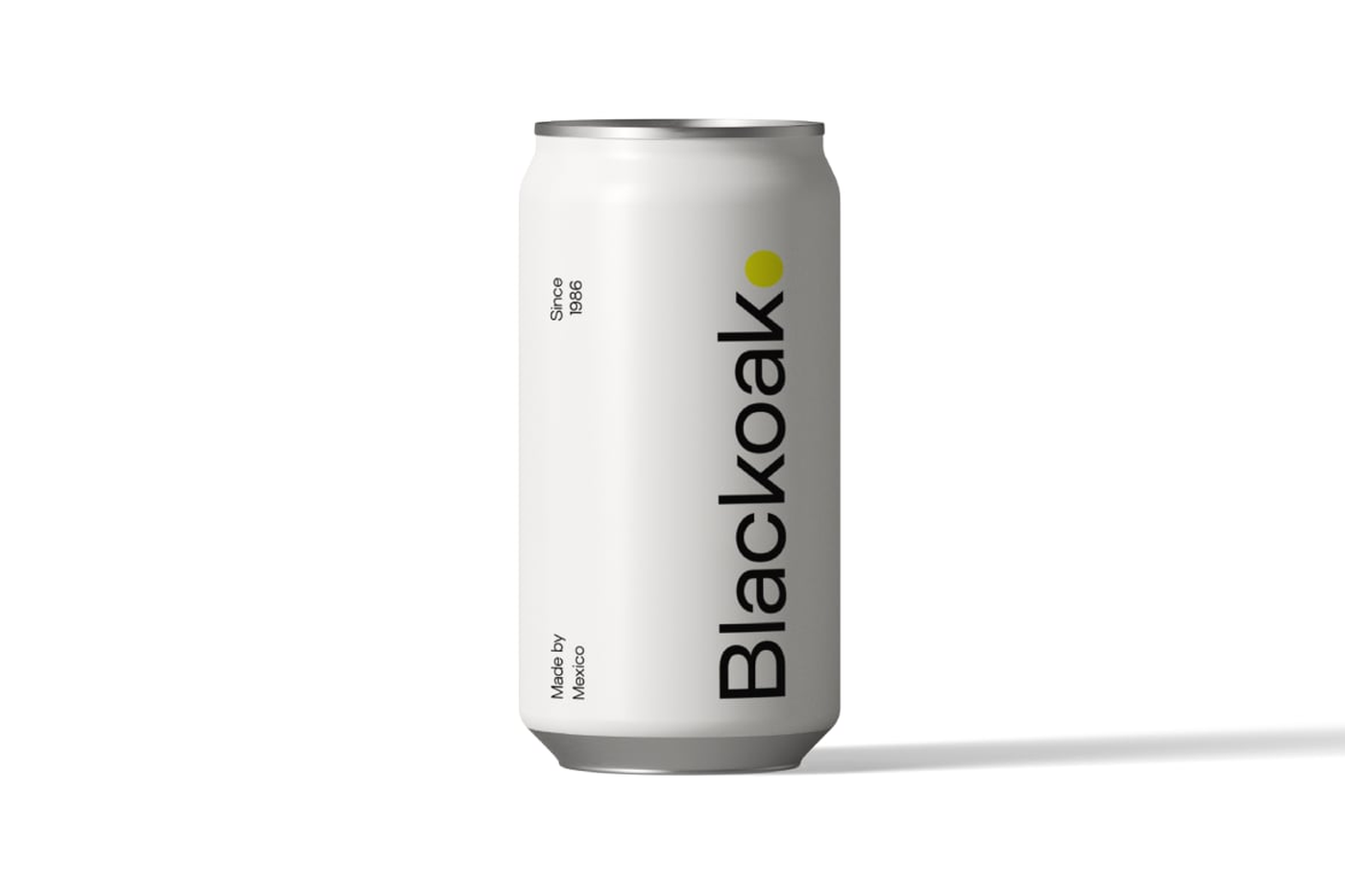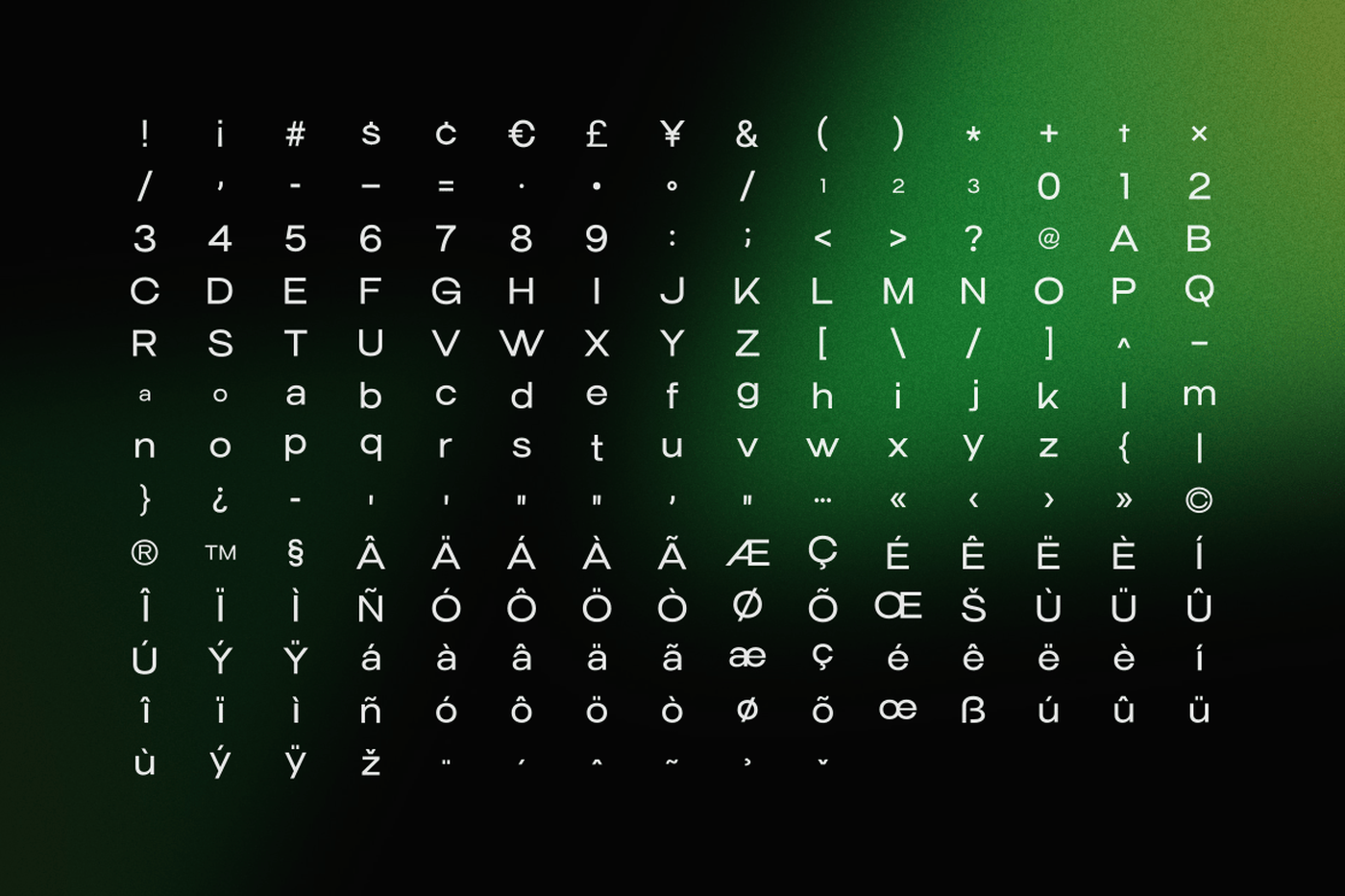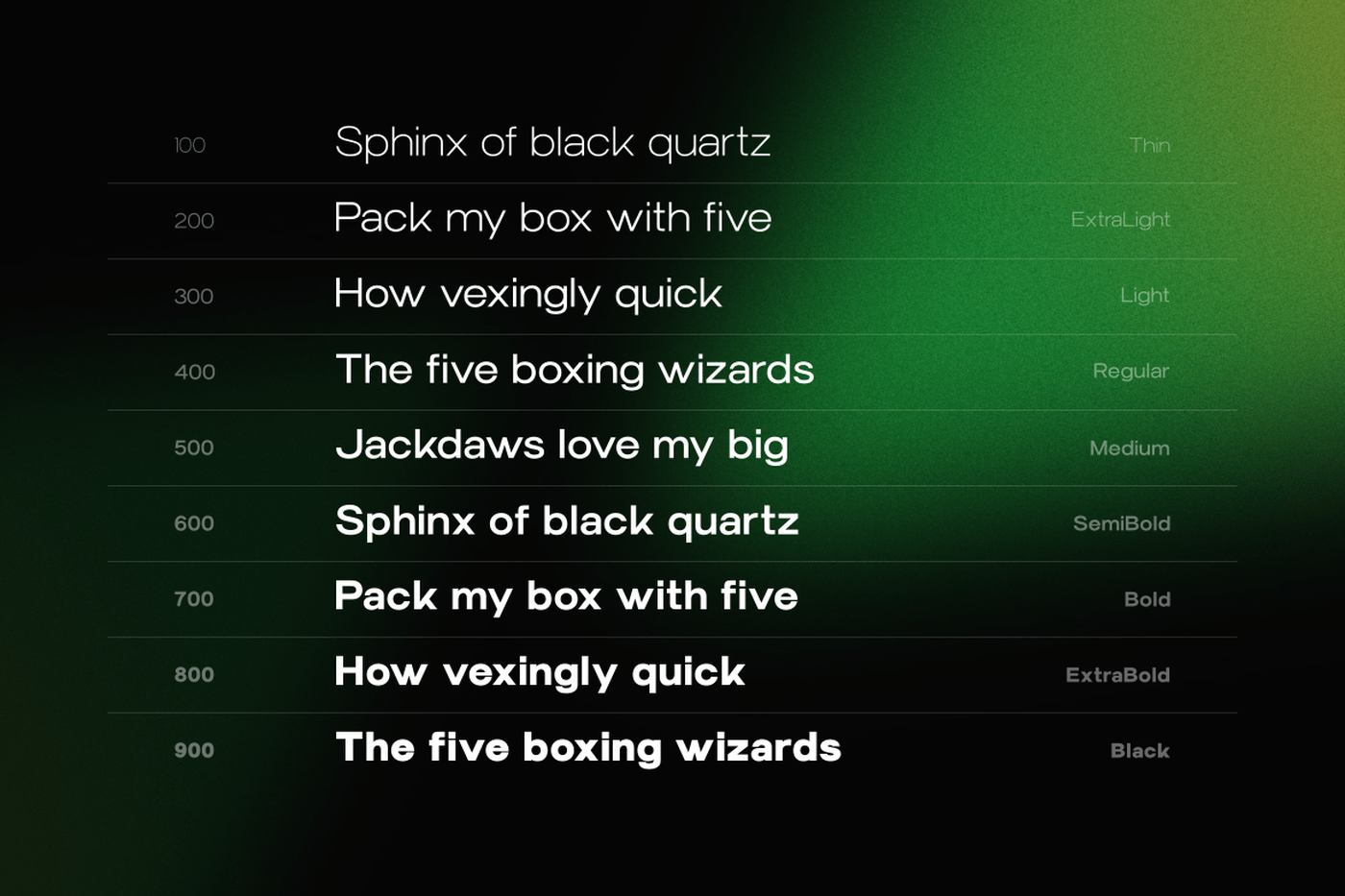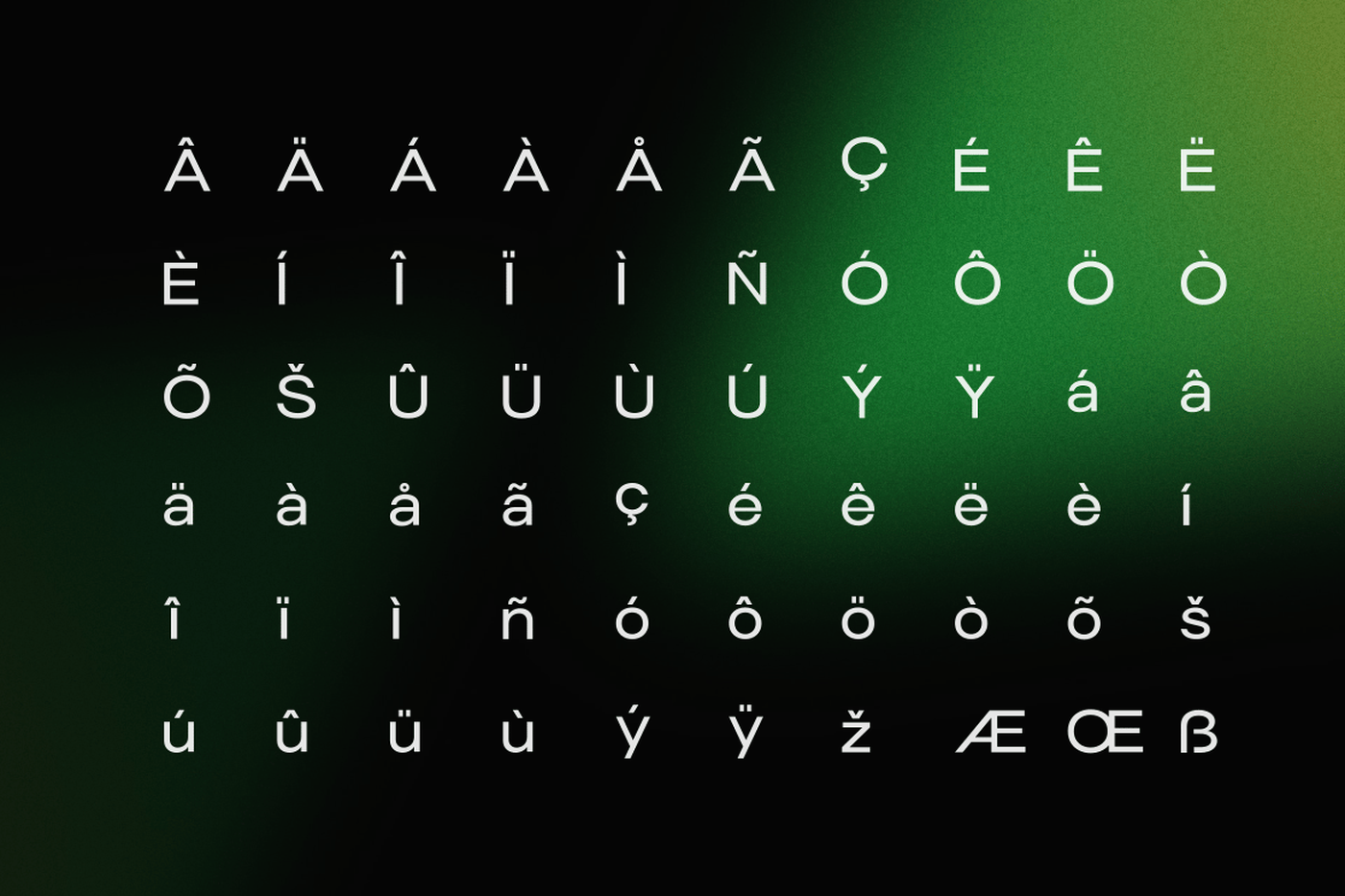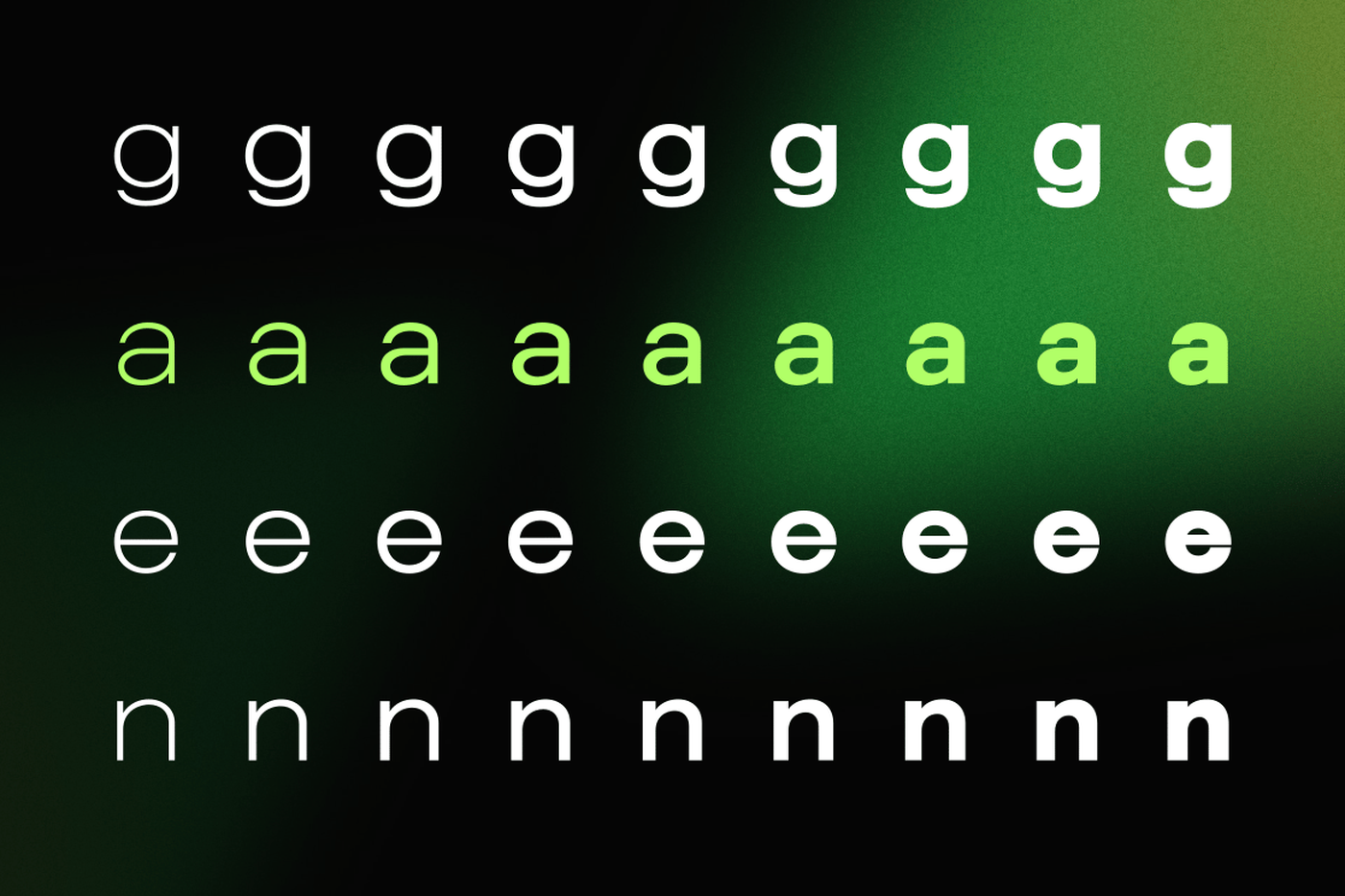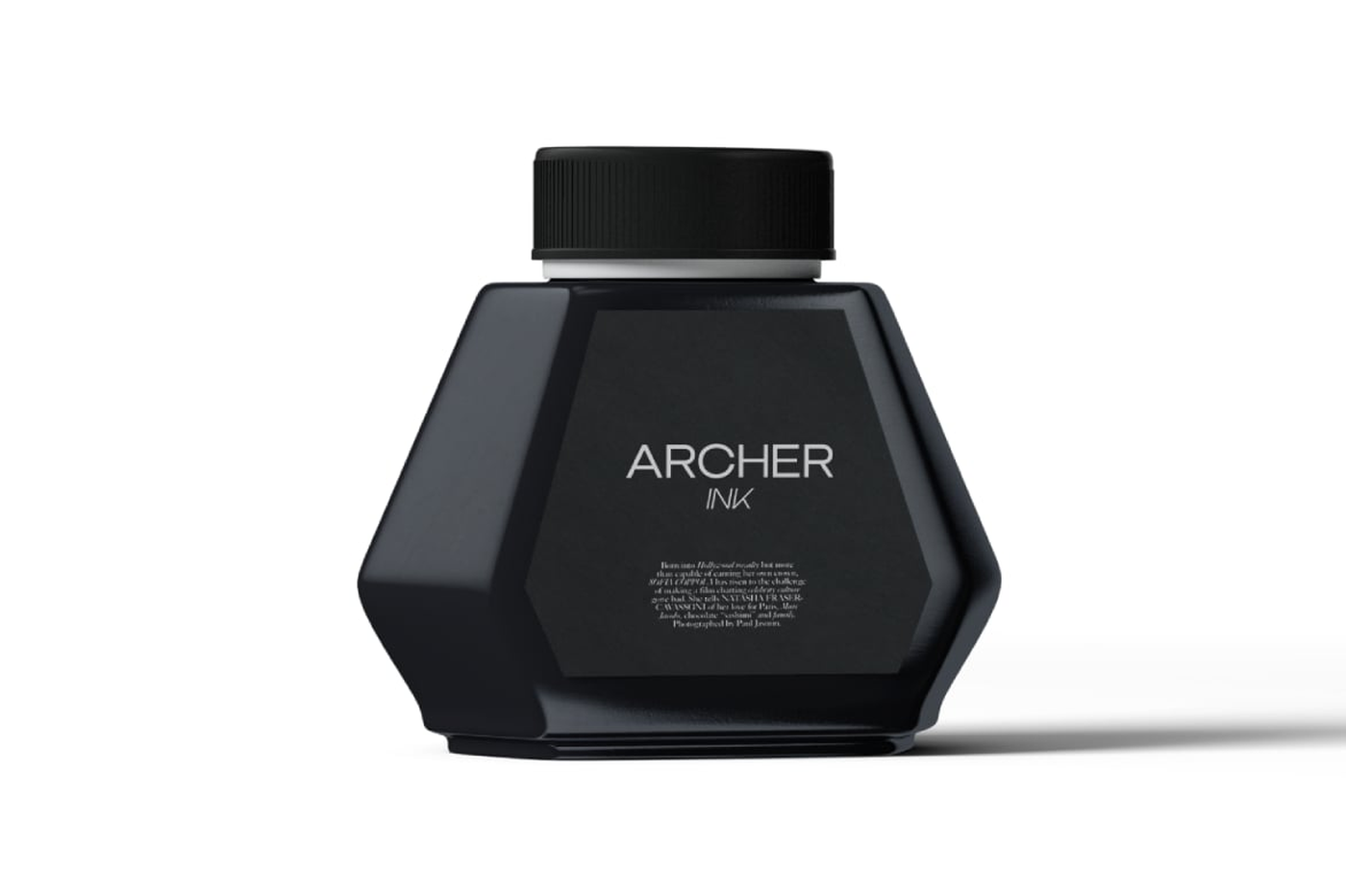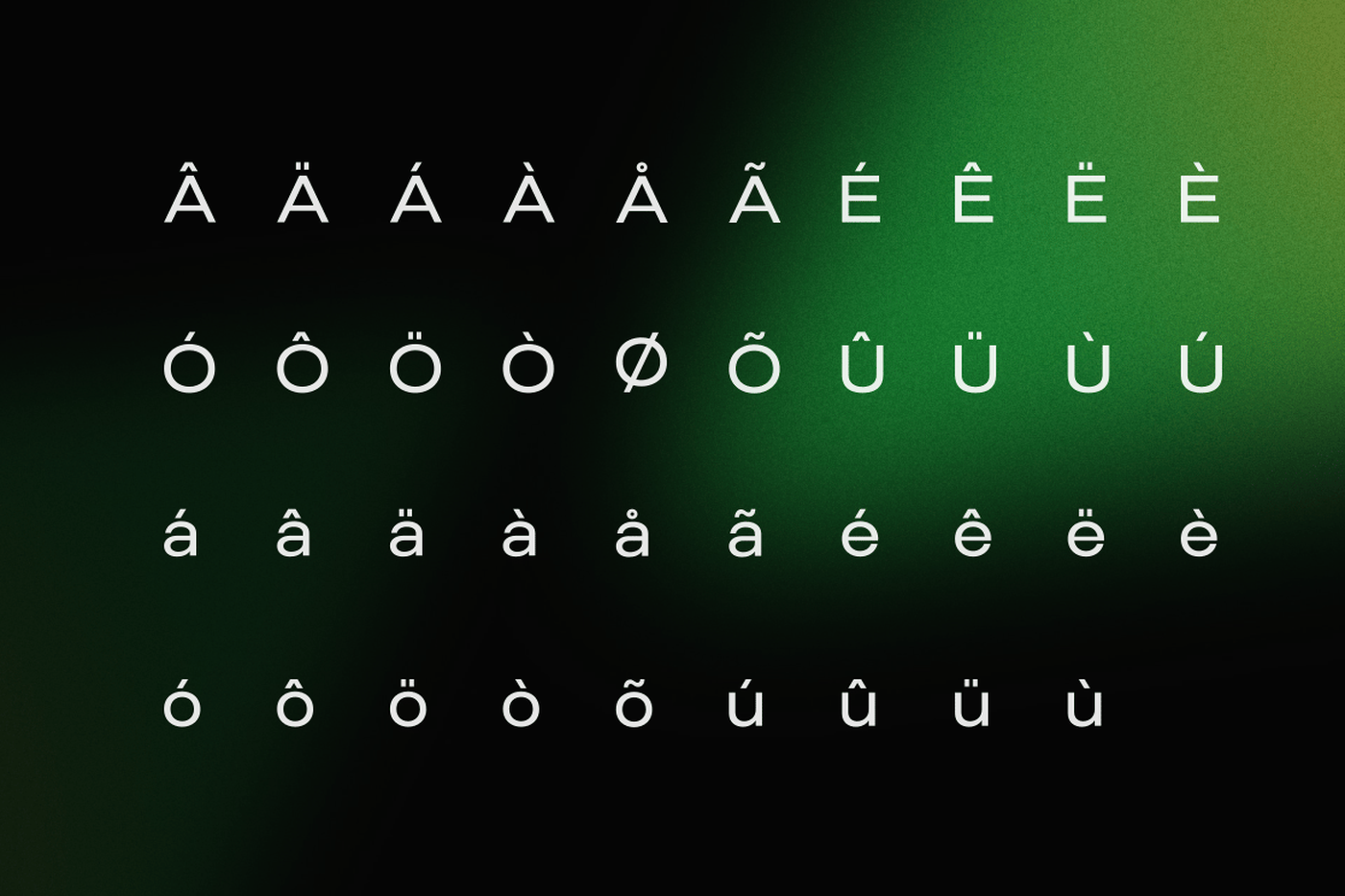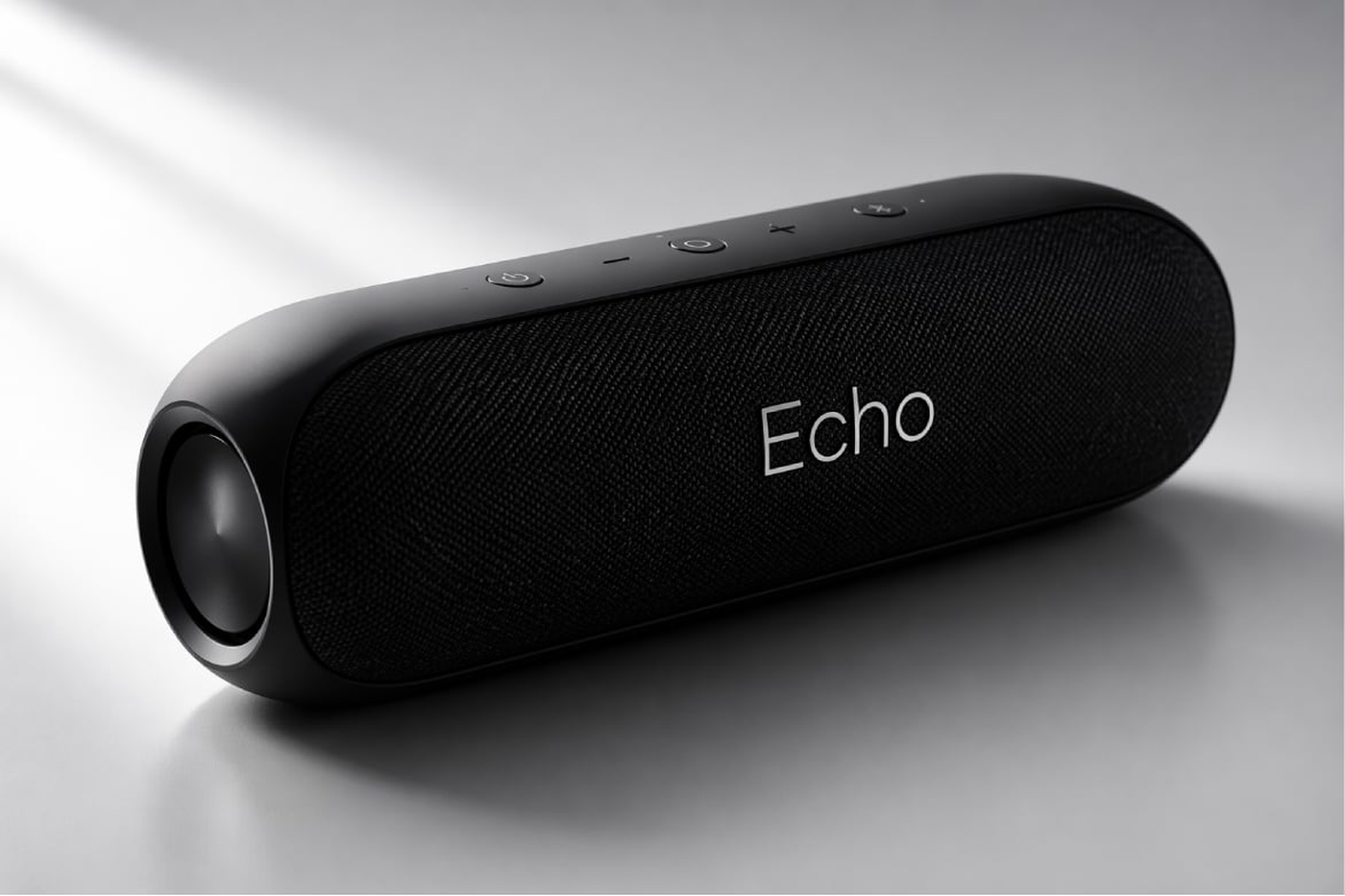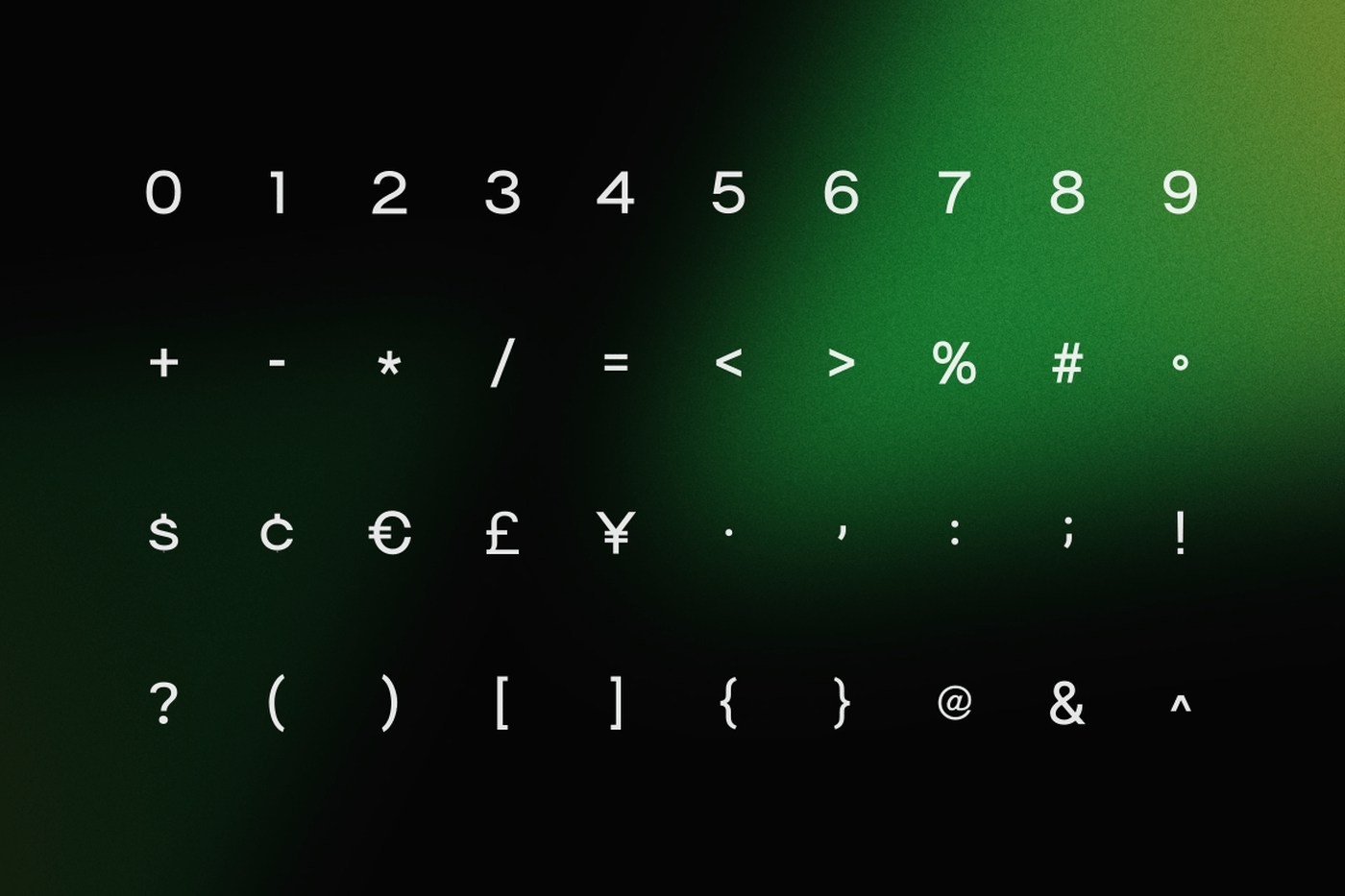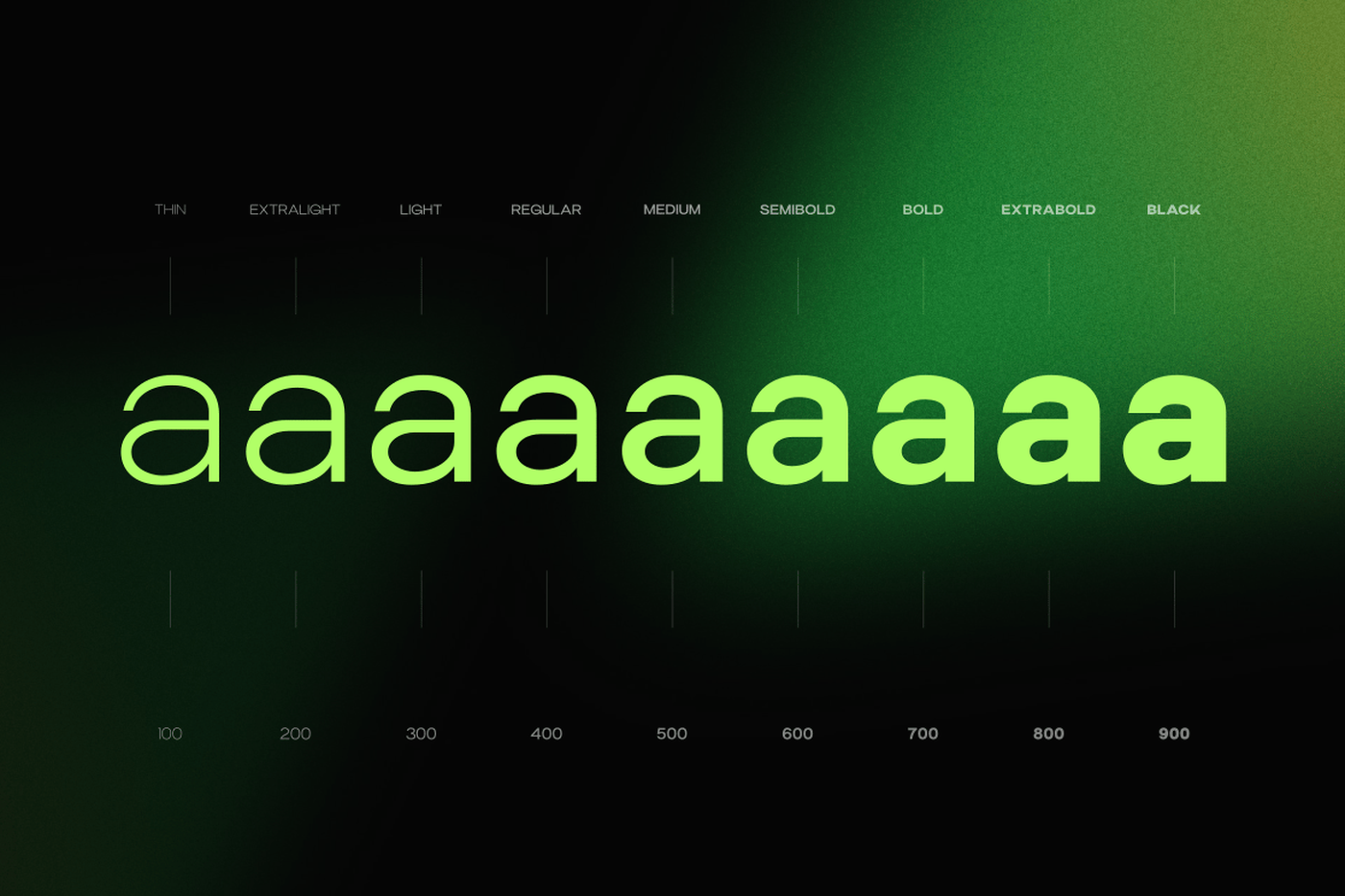
Trevia Groteska - Sans Serif Font Family
Trevia Groteska is a modern grotesk sans-serif typeface designed for clarity, balance, and everyday usability. With its clean letterforms, controlled spacing, and neutral tone, it works well across interfaces, branding, and editorial design. Built with a focus on readability, Trevia Groteska performs consistently across different sizes and contexts. It is well suited for UI design, dashboards, websites, and modern brand systems where clarity and structure matter.